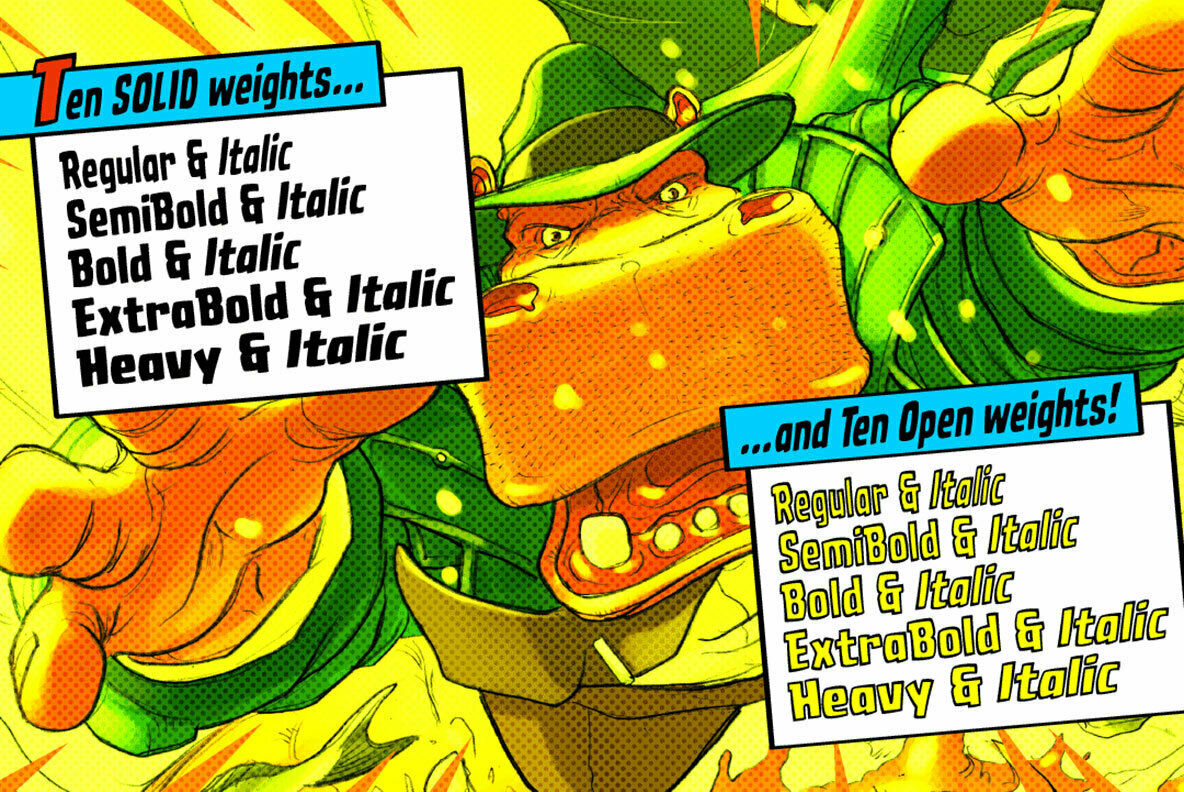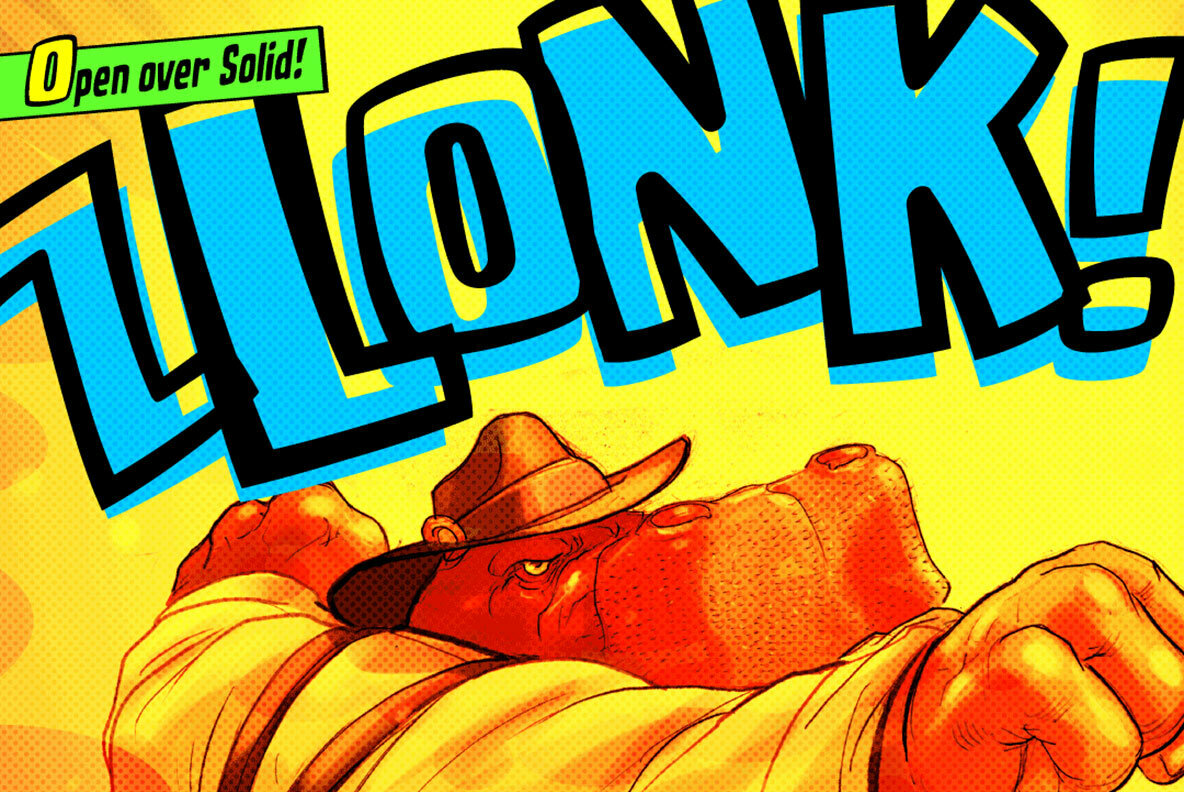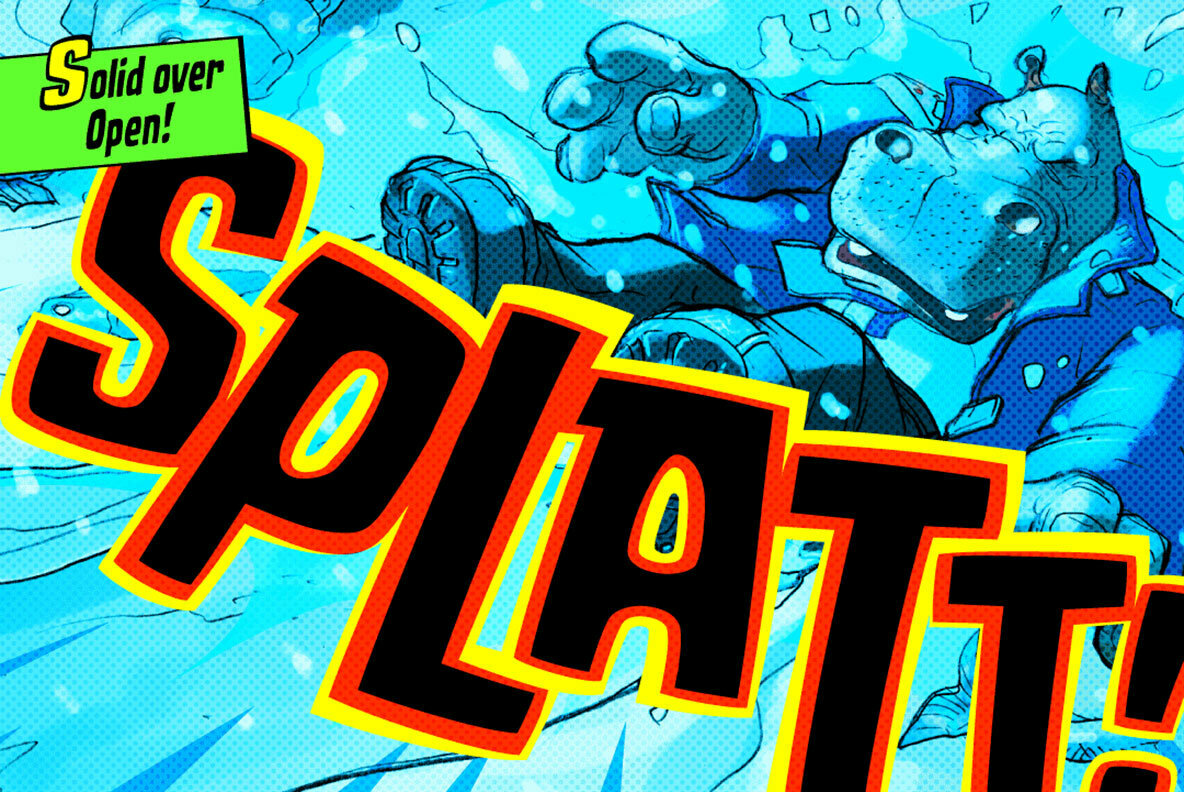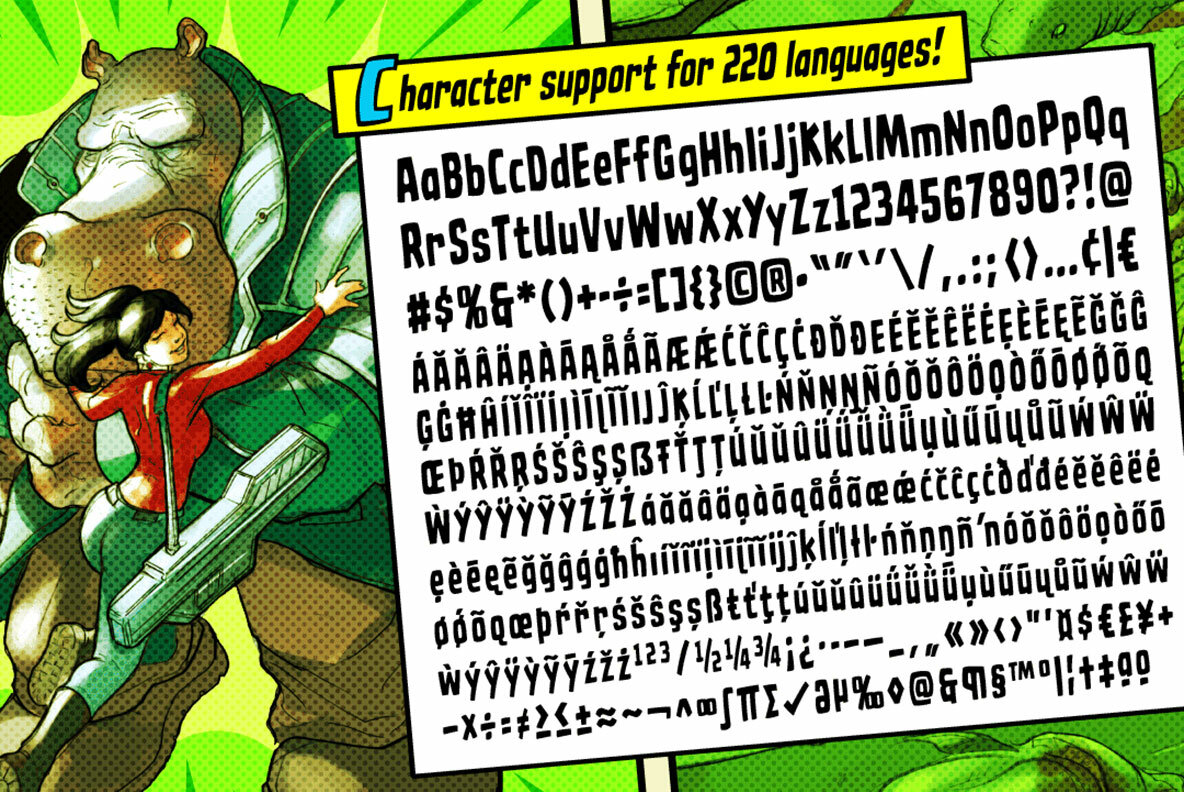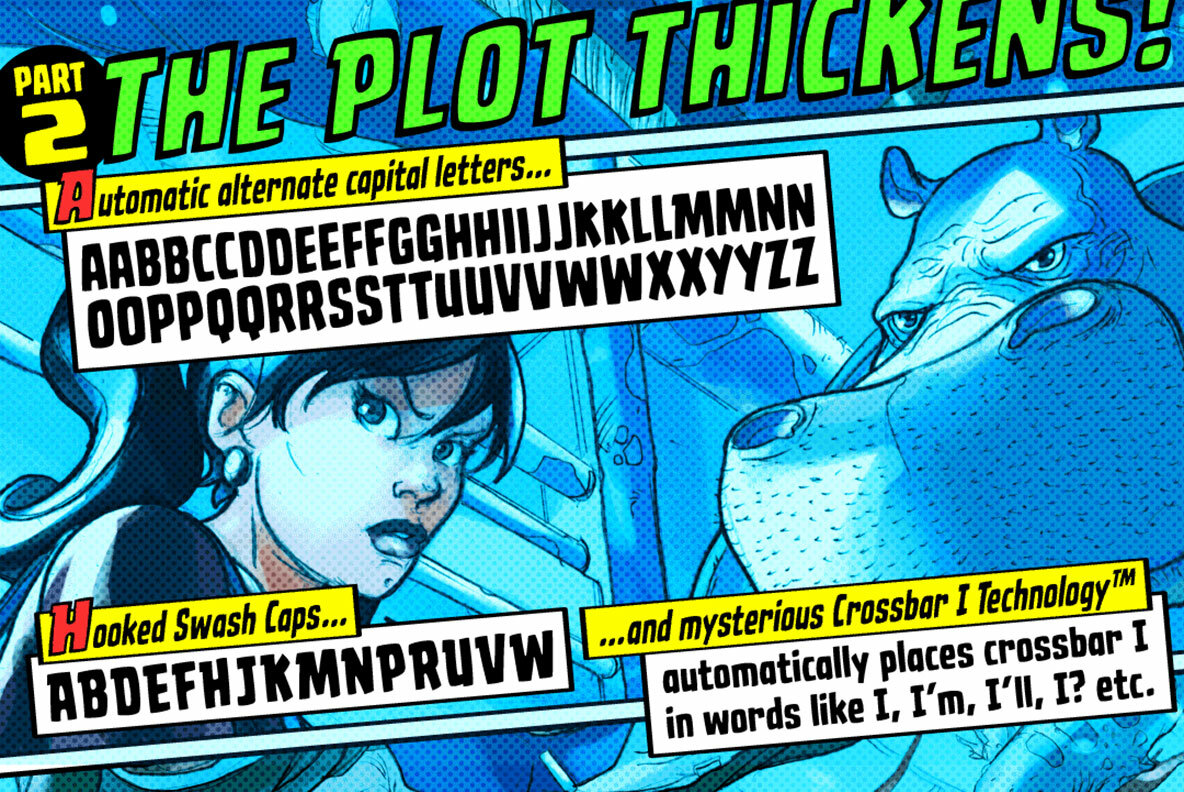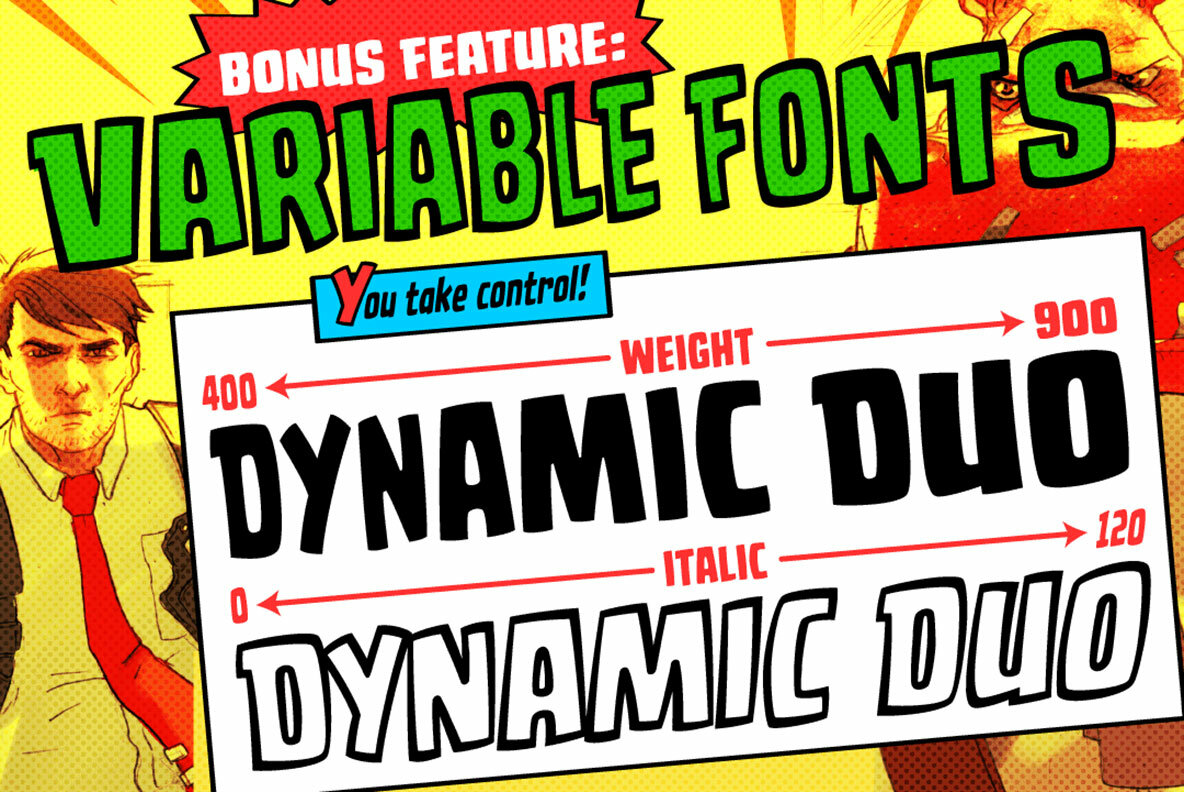
Dynamic Duo 1
The World's Greatest Comic Book Fonts!Trapped in a world they never made, Comicraft's Fearless Fonts will come to the rescue in the nick of time. Having dutifully lettered thousands of comic books, Comicraft's Fearless Fonts save the day in video games, TV shows, movie titles and wherever fun, lively f...